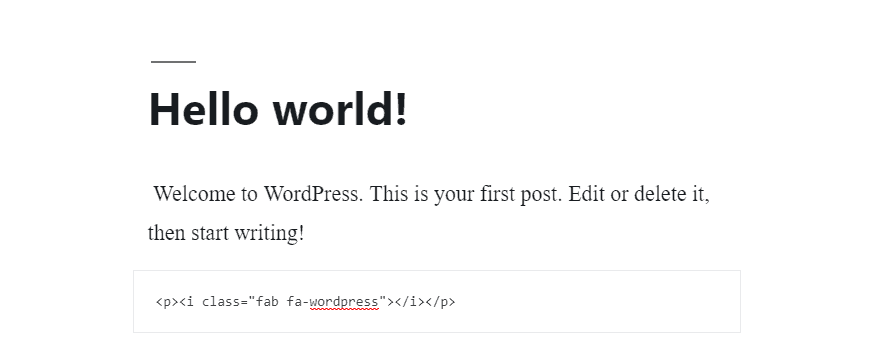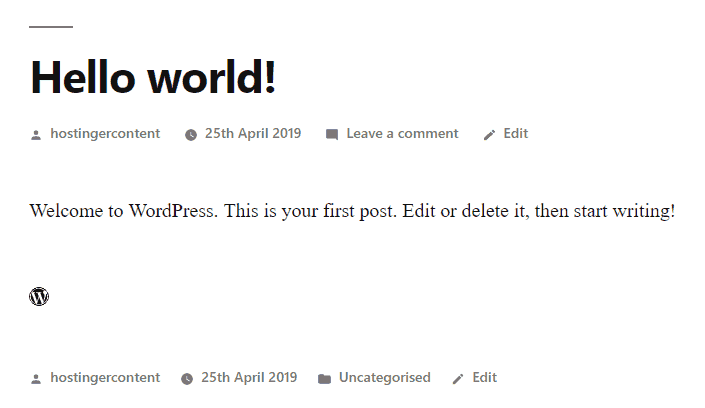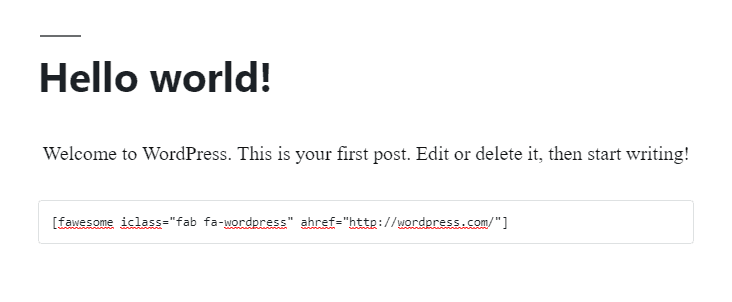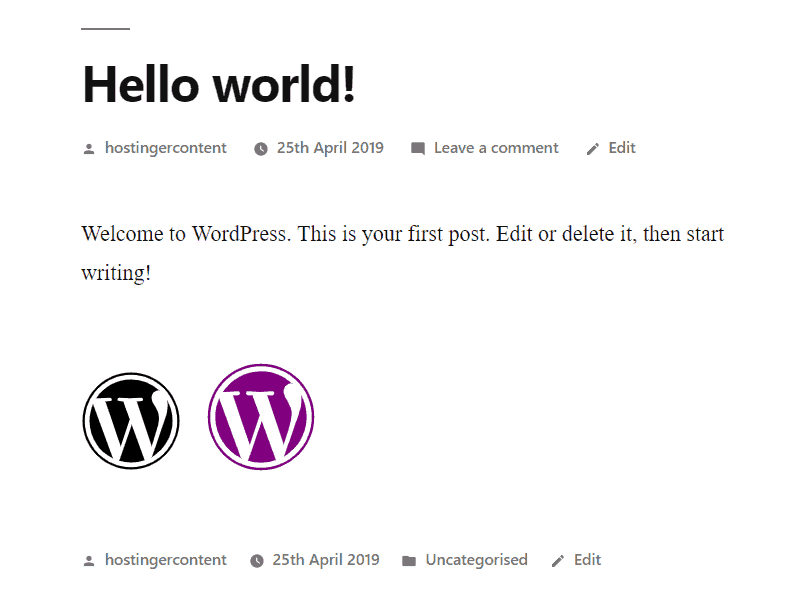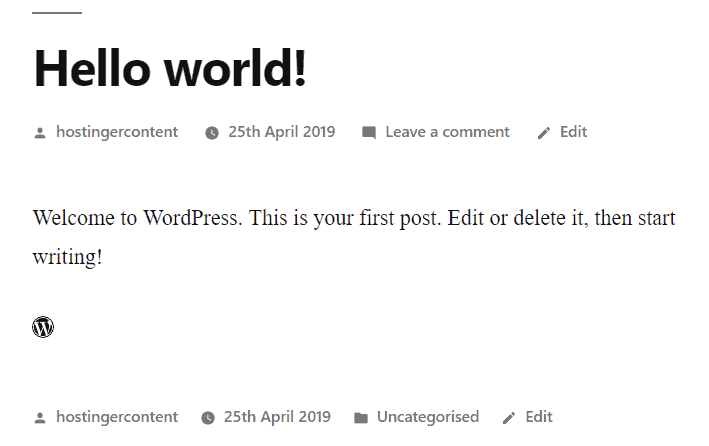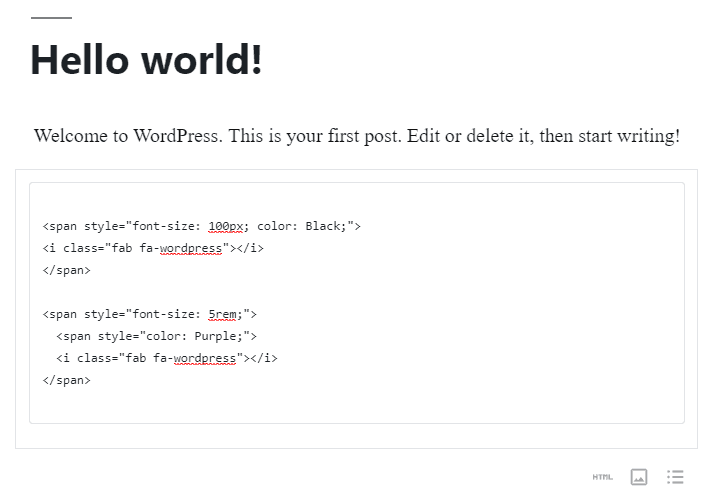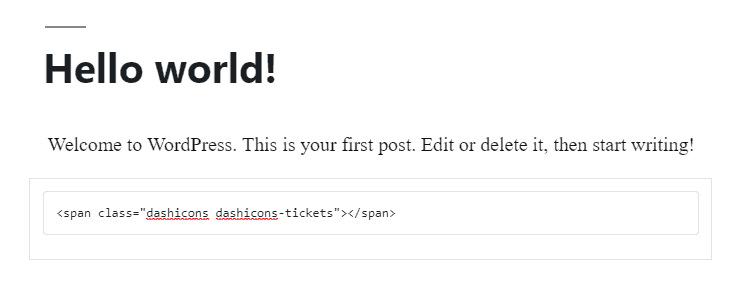
WordPress Icons: Learn About WordPress Icon Fonts and How to Upload Them
WordPress icons are a great way to add visual interest to your website. They can be used to highlight important information, draw attention to certain elements, or just add a bit of personality to your site. WordPress icons come in a variety of styles and sizes, and can be used to create a unique look for your website.
WordPress icons are typically created using a font called “Font Awesome”. Font Awesome is a free, open-source icon font that is used by many websites and applications. It contains a wide variety of icons that can be used to create a unique look for your website.
To use Font Awesome icons on your WordPress site, you will need to upload the font to your WordPress installation. This can be done by downloading the font from the Font Awesome website and then uploading it to your WordPress installation. Once the font is uploaded, you can then use the Font Awesome shortcode to add the icons to your website.
If you don’t want to use Font Awesome, there are other icon fonts available that can be used on WordPress. These include Google Fonts, Material Design Icons, and many more.
Once you have uploaded the font to your WordPress installation, you can then use the shortcode to add the icons to your website. For example, if you wanted to add a shopping cart icon to your website, you could use the following shortcode:
[icon name=”shopping-cart” size=”2x”]
This shortcode will display a shopping cart icon that is twice the size of the default icon size. You can also use the shortcode to change the color of the icon, as well as the size.
WordPress icons can be a great way to add visual interest to your website. They can be used to highlight important information, draw attention to certain elements, or just add a bit of personality to your site. With the right font and shortcode, you can easily add icons to your WordPress site.
WordPress icon fonts are a crucial part of every WordPress site. They greatly add on to maintaining responsive website design.
Did you notice all the icons on our website? One of them is the home icon on the navigation bar.
Well, if you want to add icons like this to your own website – sit back and relax, because we’re about to teach you how to do exactly that.
Why Icons?
Icon fonts are typefaces containing symbols and pictograms, instead of letters and regular symbols. It can be used to display commonly used icons – small pictures. Let’s dive deeper.
Social Media Icon Fonts on Hostinger's blog post
Some examples of icon fonts you can find in nearly every website or blog are social media buttons. When you are about to share something from a website to your Facebook account, you click the Facebook icon font!
Before icon fonts existed, all web icons and sprites were images. Because images are not scalable and are unresponsive, it can slow page loading time and make it unreachable for some audiences. So, icon fonts came as the alternative which works on any screen, and weighs much less!
Icon fonts are vector images. Therefore they are infinitely scalable.
They are a great feature for responsive design because you can easily manipulate icon fonts according to your needs. There are tons of customization options  – changing icon size and color, rotating them, adding effects, and much more. All of that and more can be simply done via CSS without any loss of visual quality.
They are simple and relatively easy to implement. Moreover, icon fonts also allow you to store many symbols inside a single file. This can reduce the number of HTTP requests.
Even though there are other options to add icons, icon fonts are still widely used because you can easily find free icon fonts or even design your own to use on your website.
Free Icon Fonts
There are several free icon fonts sources available for your WordPress site. You can simply browse for “icon font” on Google. IcoFont, Font Awesome, We Love Icon Fonts, and IcoMoon are the most recommended platforms.
The landing page of IcoFont
IcoFont is one of the biggest sources for free icon fonts. It provides more than 2100 icons in a single font that are sorted into 30 categories. It also allows you to generate your own customized icon pack as well.
You can simply download icons from IcoFont’s site  – either by copying the HTML code or clicking on the download button from the site navigation.
Simply browse the icons that you selected, add them to your collection, and download them. After downloading, you will get a zip file consisting of CSS, examples, and fonts. The HTML snippets of the downloaded icons are paired together with their Unicode in the example folder.